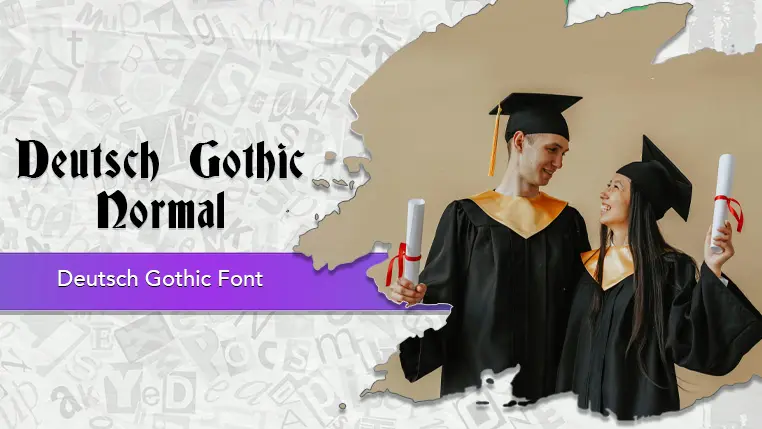
The Deutsch Gothic font family may be ideal for you if you enjoy working on an artistic design project. The lively, expressive look of this typeface, which was created by James Fordyce, makes it ideal for Tattoo Designs, Logos and Branding. The font's formal and historical feel makes it a good choice for titles on certificates, diplomas, and invitations for formal events where a sense of gravitas and history is desired. Due to its intricate letterforms, this font is best used for headlines, mastheads, and other short, decorative text elements. Its legibility suffers in long paragraphs, so it's not suitable for body text. and other light-hearted visual projects.
Normal are the one primary font styles of the Deutsch Gothic font family. You may build dynamic, visually appealing text layouts with the distinct flair that each style offers. With crisp, readable lines and a relaxed tone.